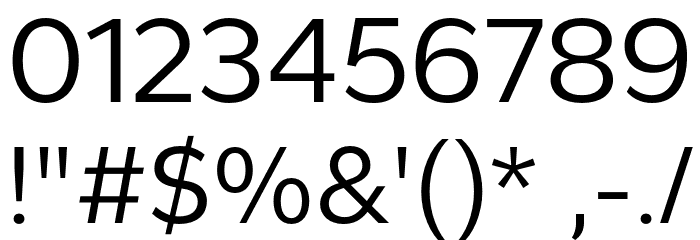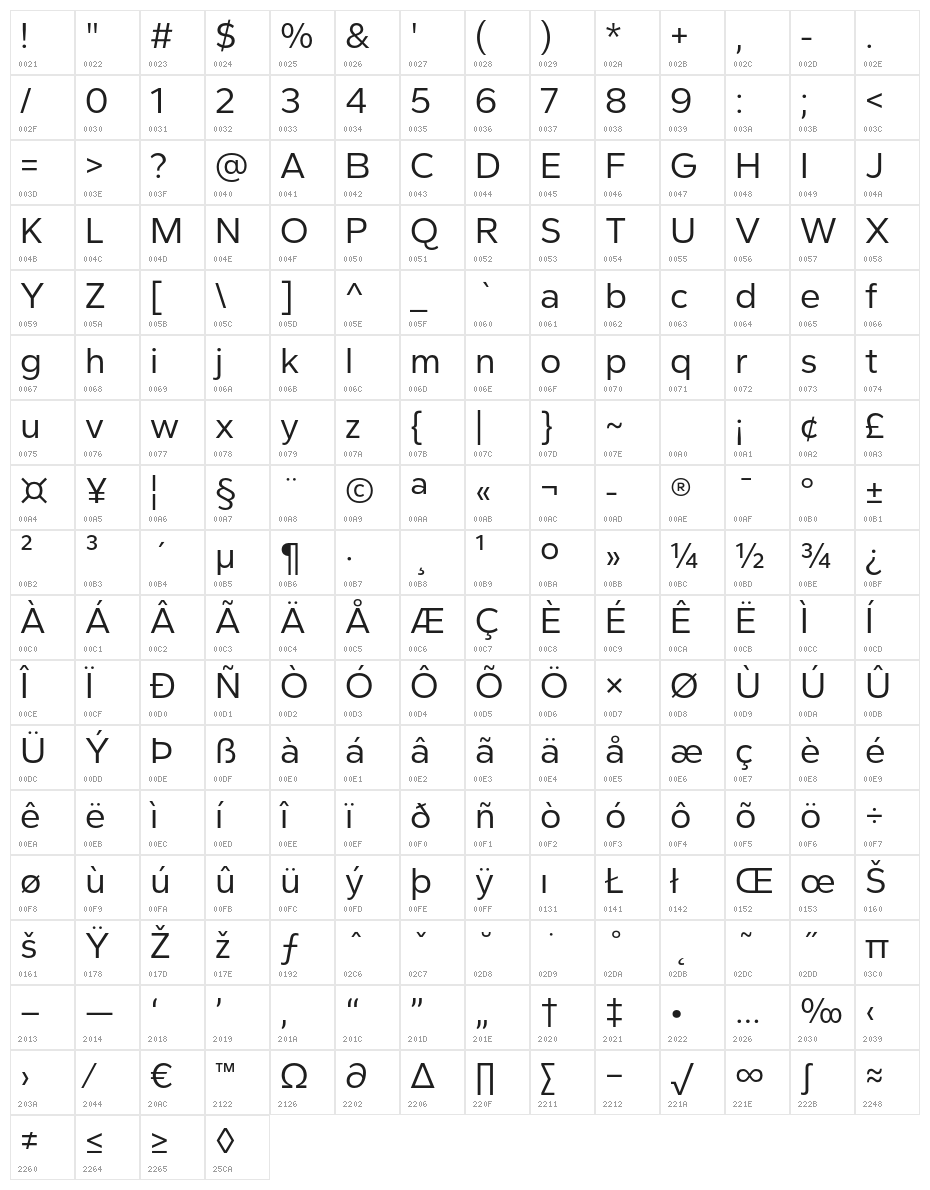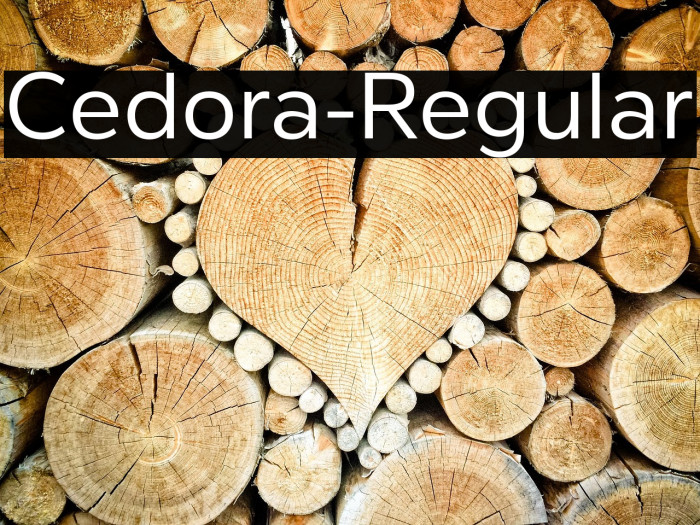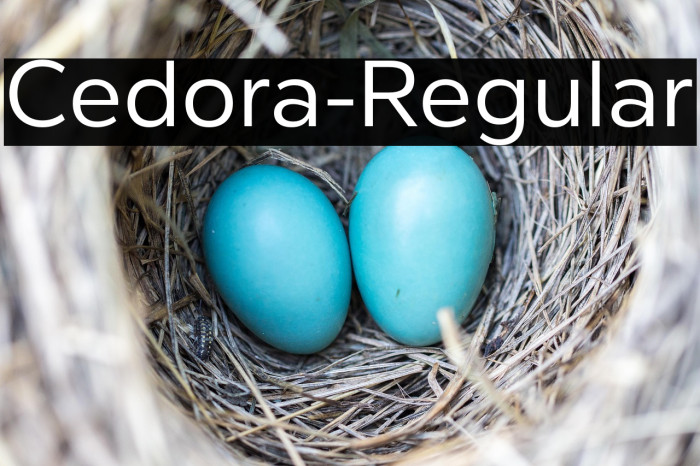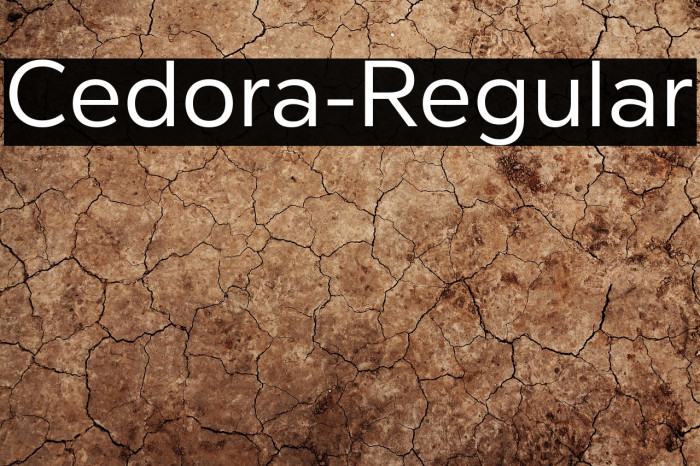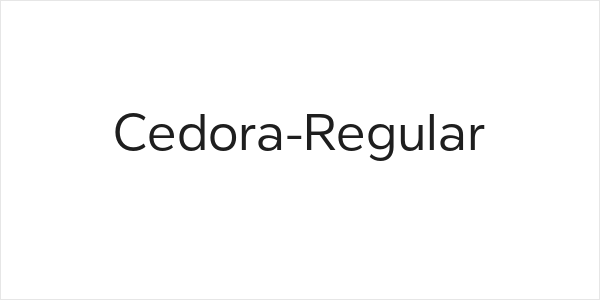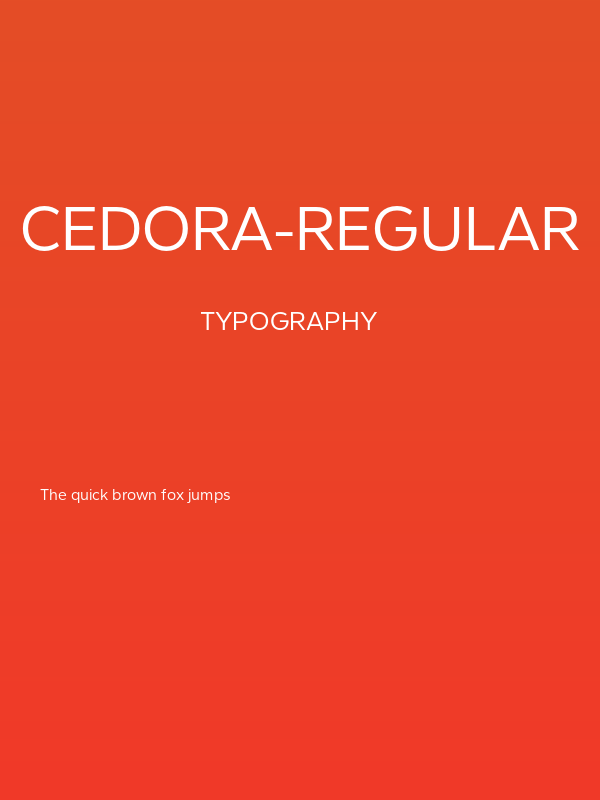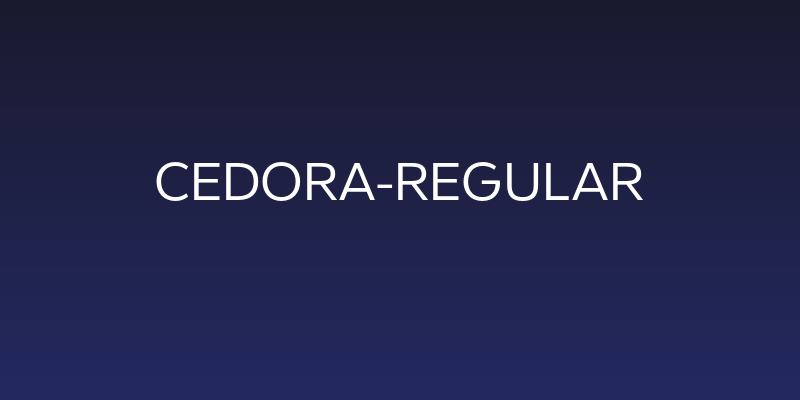
Cedora-Regular Font
Cedora-Regular Description
This font features a clean and modern sans-serif design, characterized by its geometric shapes and uniform stroke widths. The letters are well-proportioned, offering a harmonious balance between curves and straight lines. The uppercase letters are bold and assertive, while the lowercase letters maintain a friendly and approachable appearance. The numerals are clear and easy to read, making them suitable for various applications. Special characters are included, providing versatility for different uses. Overall, this font exudes a sense of professionalism and clarity, making it ideal for both digital and print media.
| Proposed Projects | Ideal for branding, web design, corporate materials, and editorial layouts. |